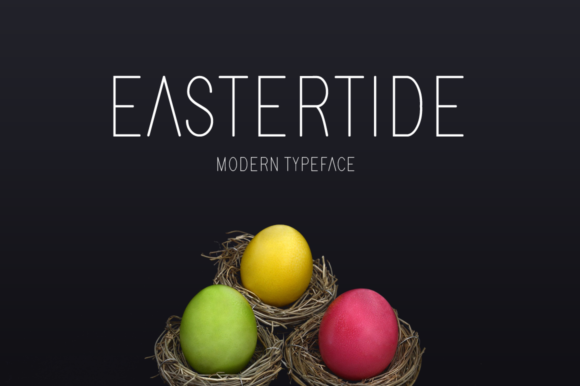
Dive into the enchanting realm of Eastertide Font, a breathtaking display font that sparks imagination and captivates hearts. Its delicate strokes and graceful curves dance across the canvas, whispering tales of timeless elegance and ethereal beauty.
Picture the allure of springtime, where blossoms unfurl and nature awakens. Eastertide Font captures this essence, blooming with a vibrant energy that's as refreshing as a morning breeze. Its thin, elongated characters effortlessly evoke a sense of grace and sophistication, making it an ideal choice for any design that seeks to leave a lasting impression.
Whether you're crafting heartfelt stationery that conveys your deepest emotions, designing logos that exude professionalism, or creating t-shirts that speak volumes about your unique style, Eastertide Font is your perfect companion. Its versatility knows no bounds, seamlessly adapting to paper, print, websites, and more.
Envision the impact of a website header that welcomes visitors with the charm of Eastertide Font. Its elegant letters set the tone for an unforgettable browsing experience, drawing eyes and captivating imaginations. Photo frames adorned with this font transform treasured memories into works of art, while posters and flyers adorned with its graceful lines command attention and leave a lasting impression.
Music covers graced with Eastertide Font promise a journey of melodies and rhythms. Its enchanting curves harmonize perfectly with the soul-stirring essence of music, inviting listeners to lose themselves in a world of sound. Image sliders featuring this font create a captivating visual narrative that captivates audiences and leaves them yearning for more.
Eastertide Font is more than just a typeface; it's an artistic expression that empowers you to share your stories and make an impact. Its delicate strokes invite you to explore your creativity, pushing the boundaries of design and capturing the essence of your imagination.